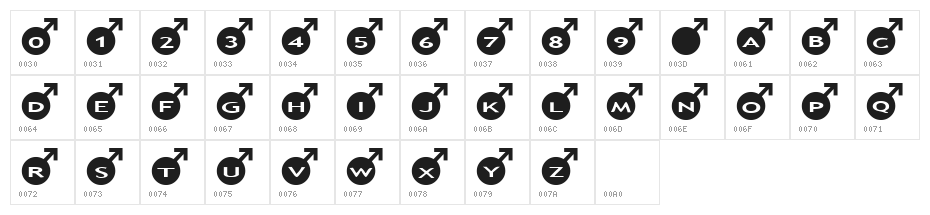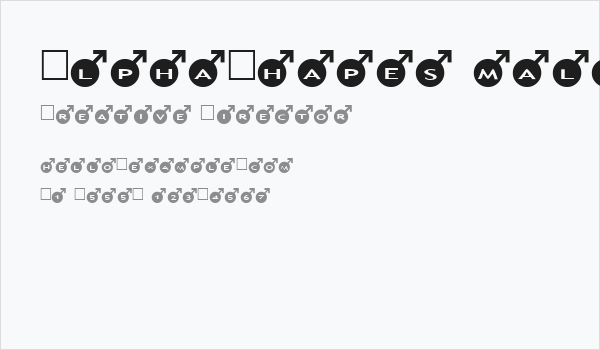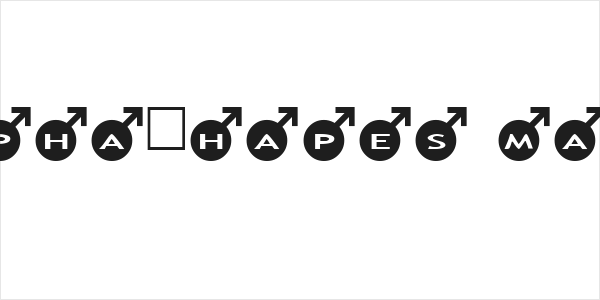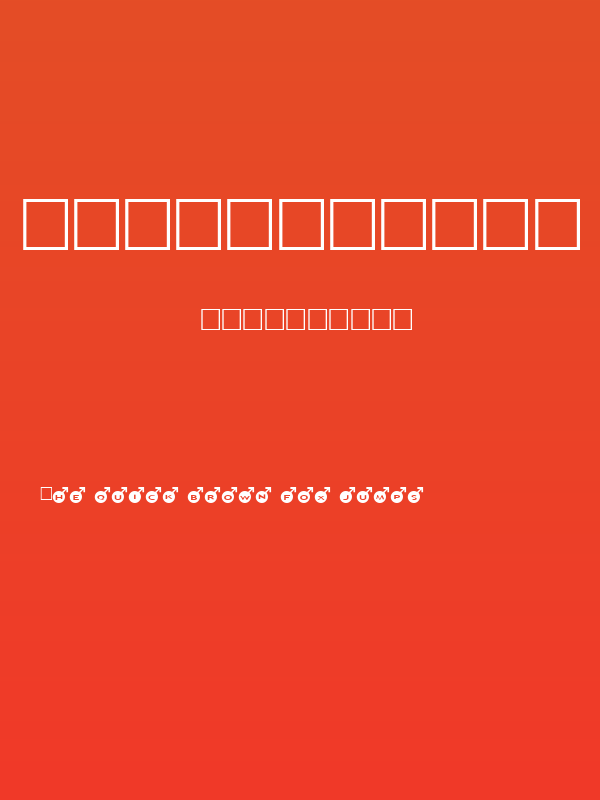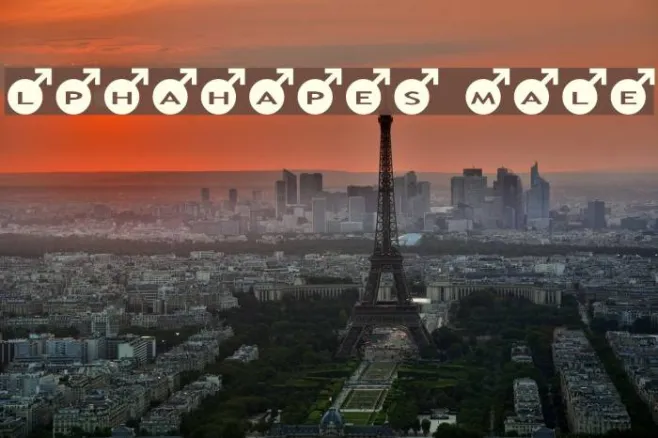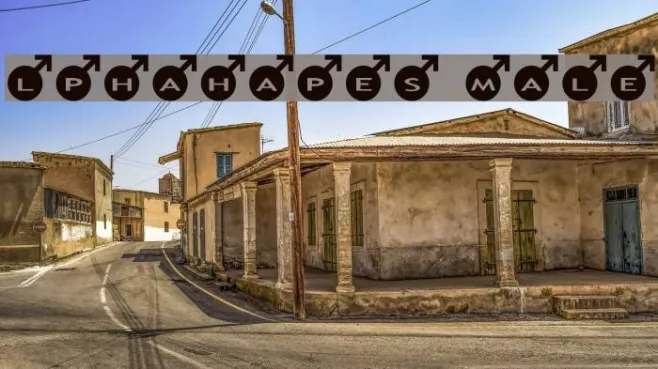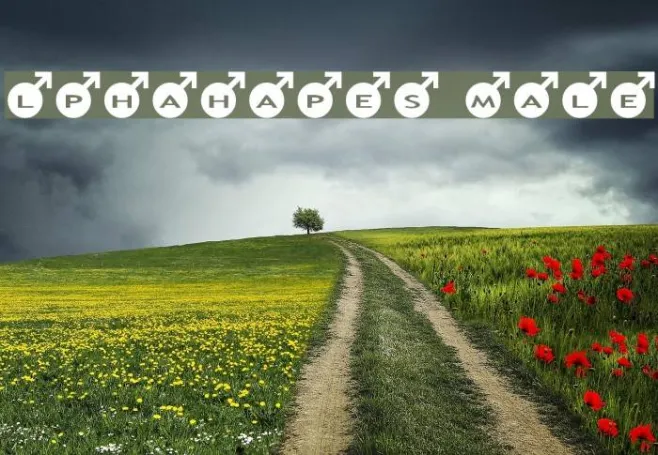
AlphaShapes male Font
AlphaShapes male Description
This font features bold, uppercase letters and numbers encased within solid black circles, each adorned with a male gender symbol. The design is striking and modern, with a playful yet assertive style. The characters are evenly spaced, providing a balanced and cohesive appearance. The use of the male symbol adds a unique decorative element, making it stand out for specific thematic projects. The font's boldness ensures high readability, while the circular design adds a touch of creativity.
| Use Case | Logos, Posters, Thematic Designs |
| Proposed Projects | Ideal for gender-themed designs, modern posters, creative branding, and educational materials focusing on gender studies. |